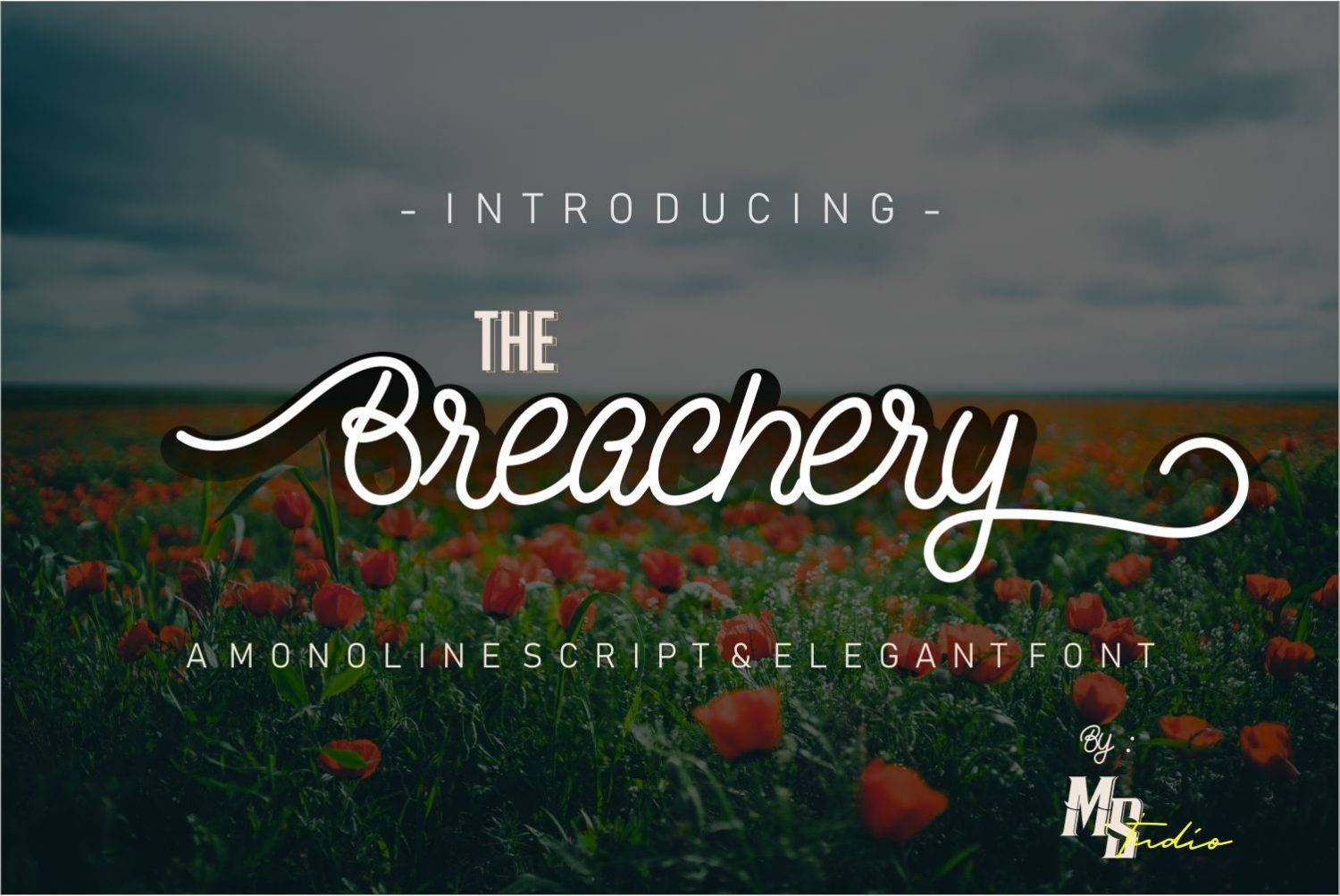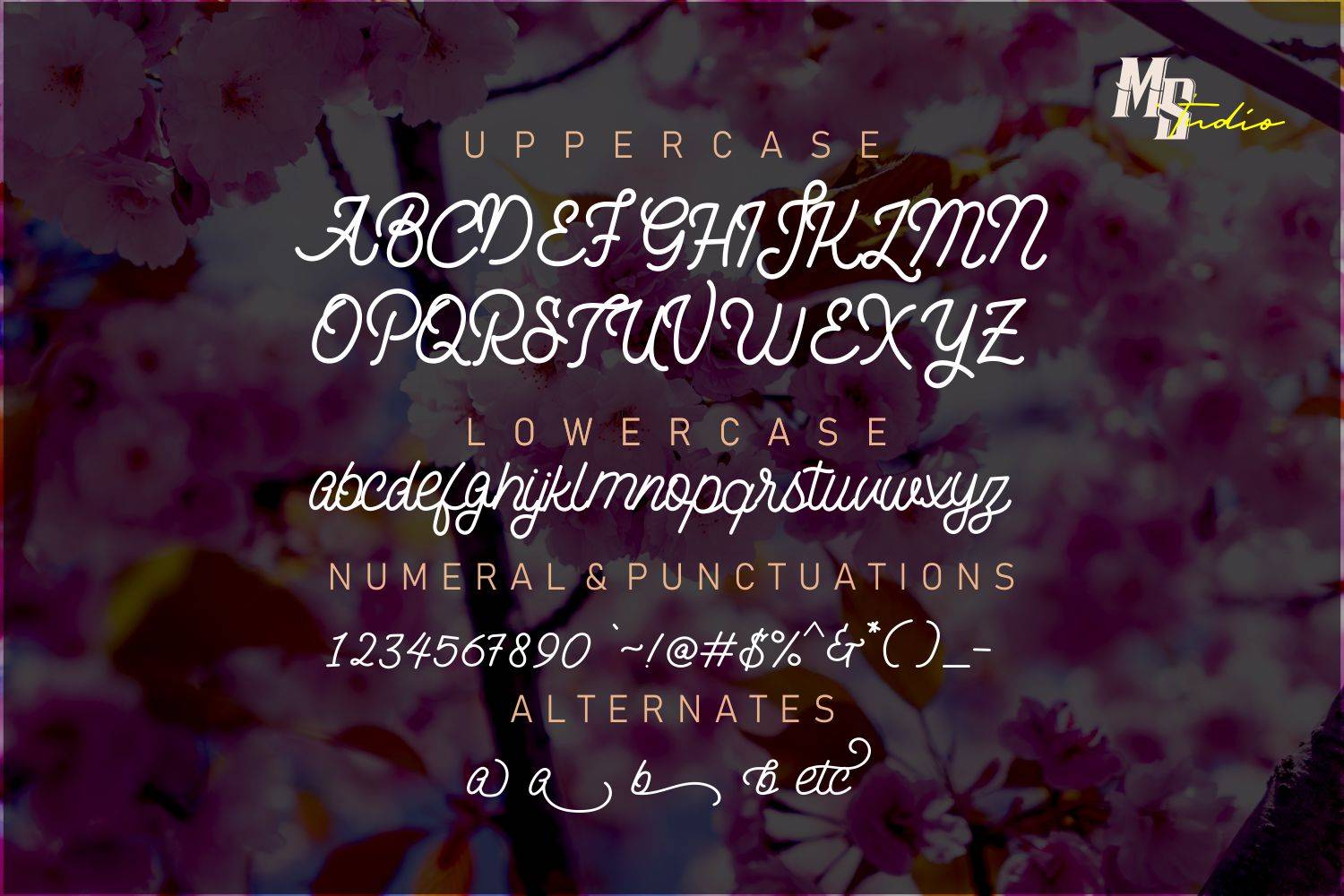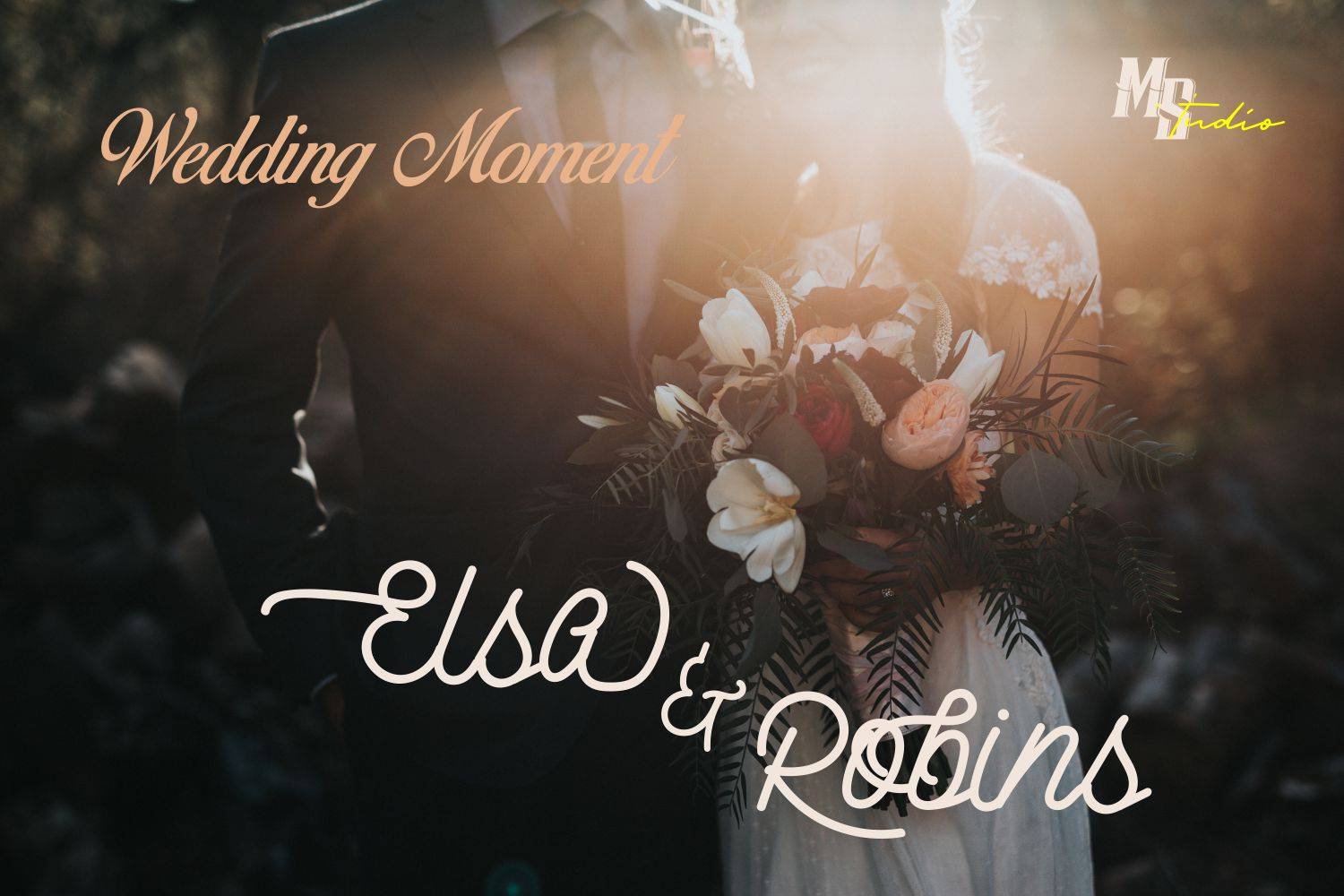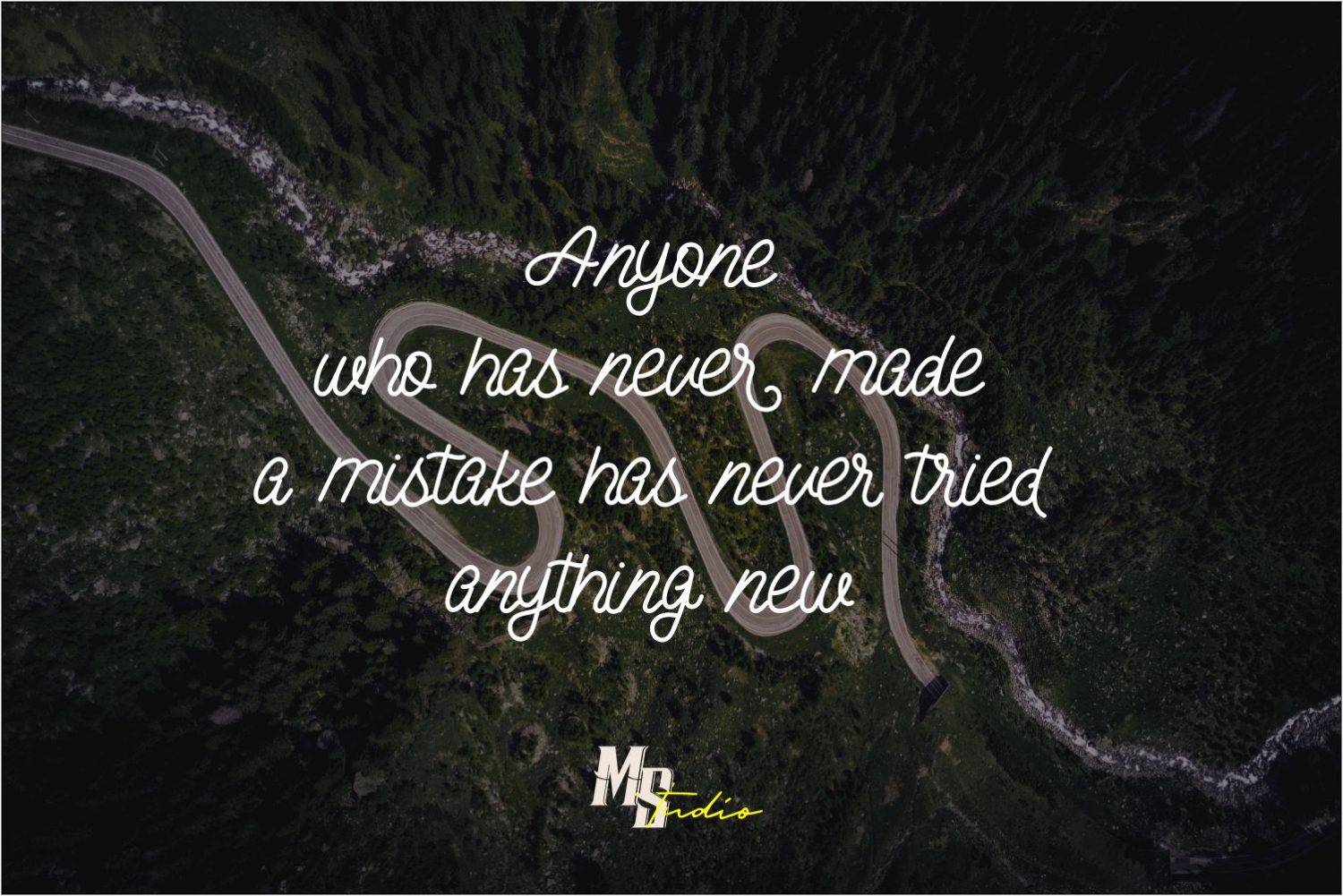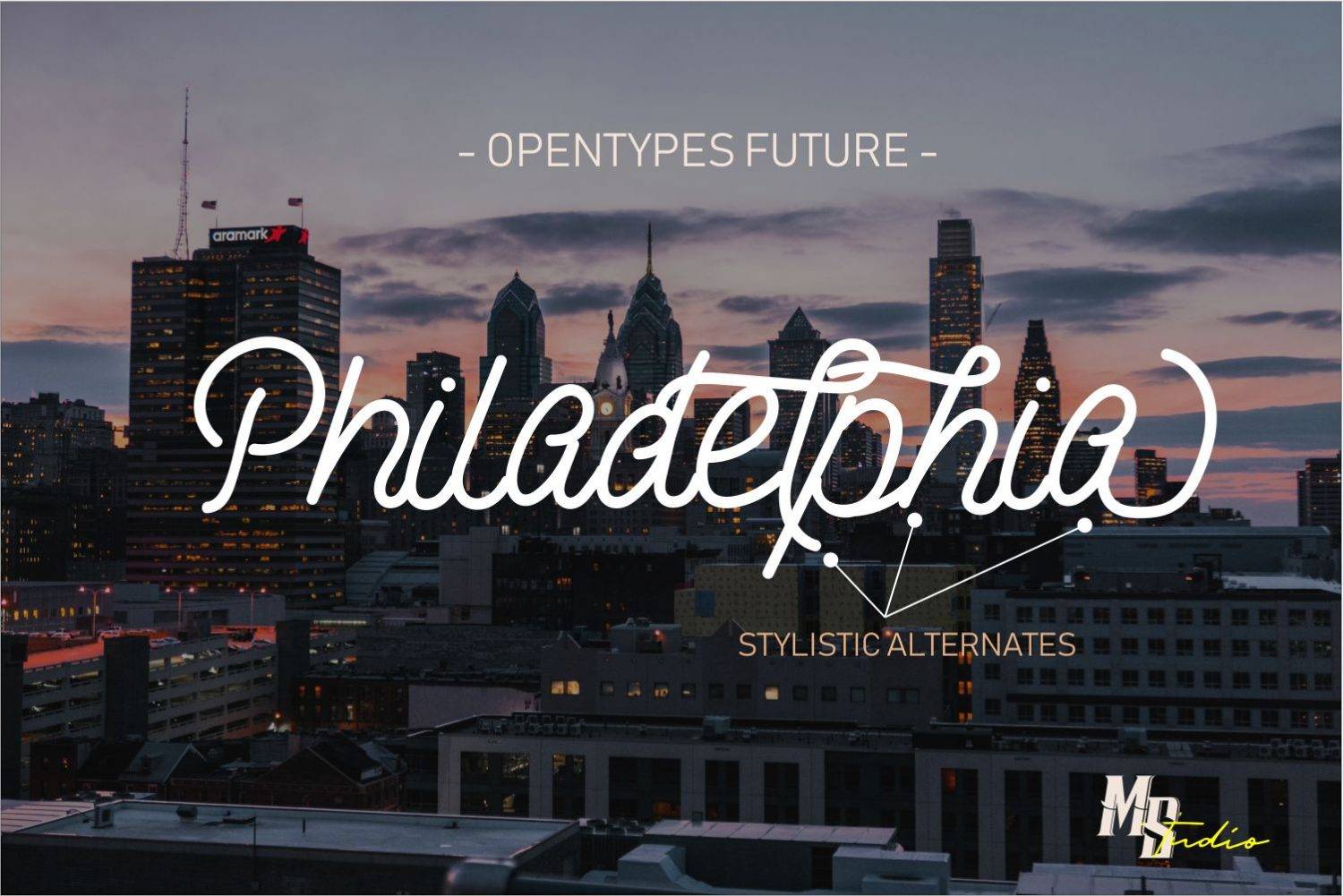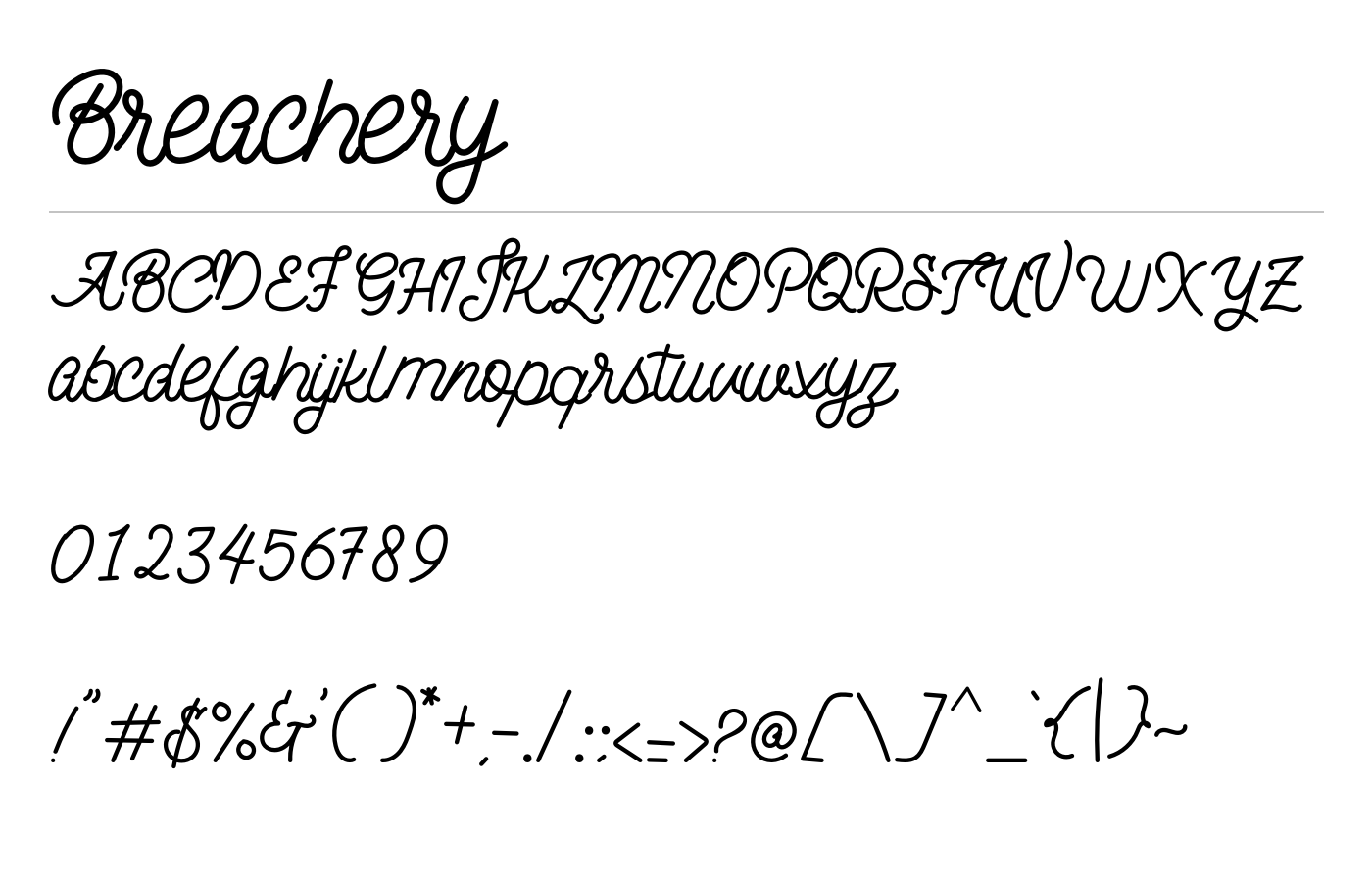
The Breachery Font is a playful and elegant script typeface with a light, flowing weight that feels both modern and friendly. Its smooth, rounded strokes and slight slant create a handwritten charm, making it ideal for projects that want to convey creativity and approachability, such as invitations, branding, and casual editorial designs. This font works well for headlines and logos where a personal, stylish touch is desired.
The Breachery Font
About The Breachery Font
| Font family | The Breachery Font |